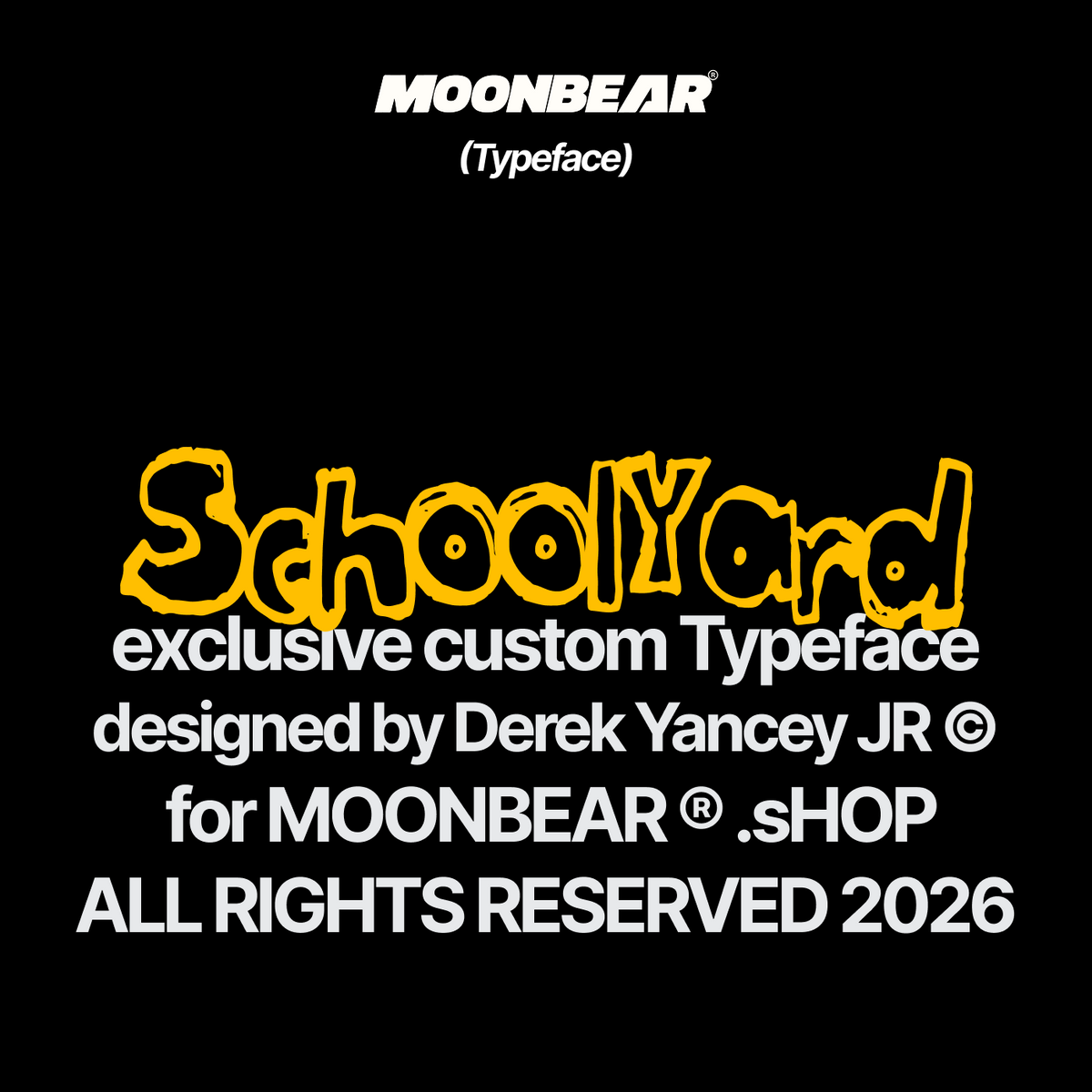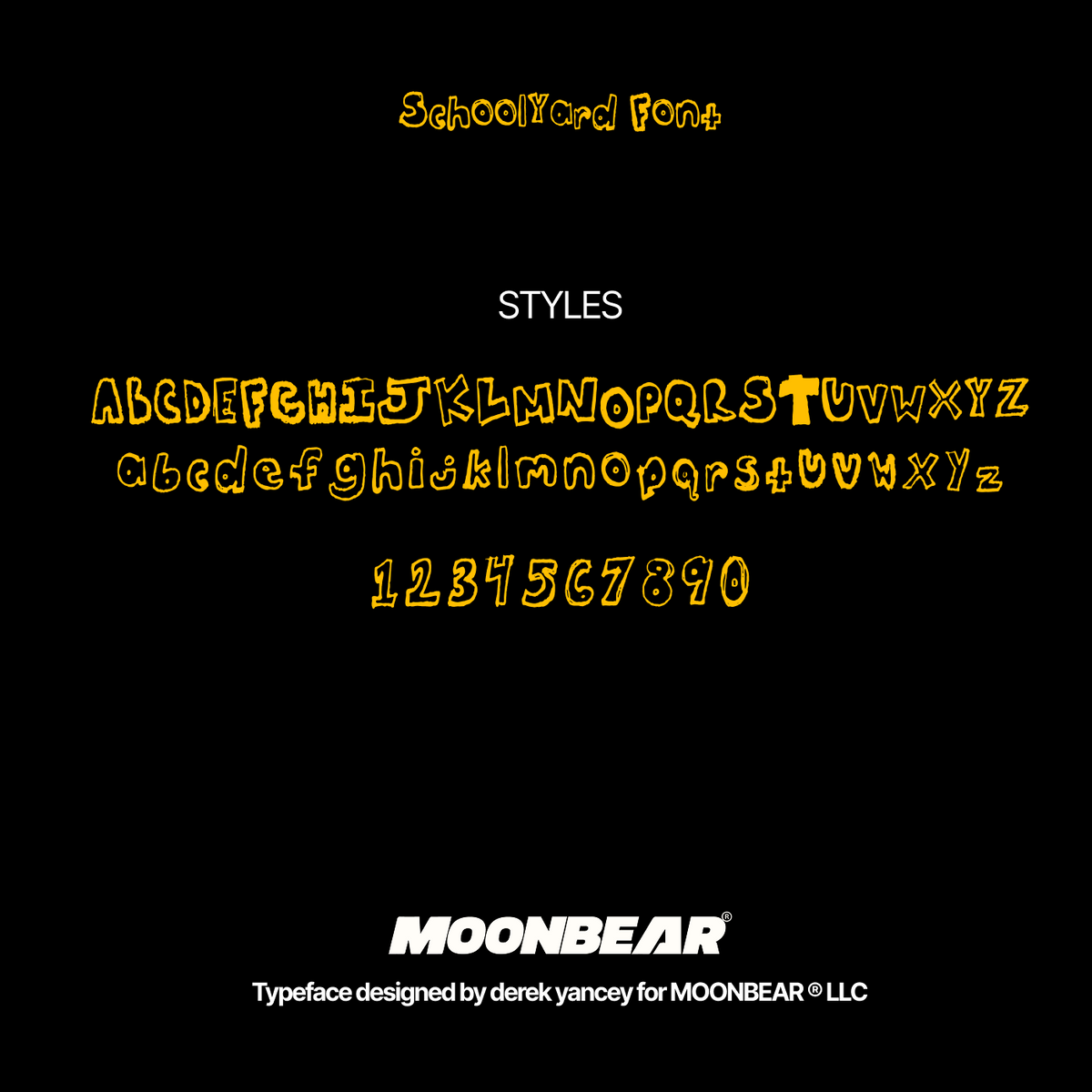
SchoolYard Font
Description
Create irresistible designs with the School Yard Font!
This fun, chalk inspired font will add a playful touch to any project.
Perfect for music videos, films, or poster designs.
This font is sure to catch everyone's eye.
Get creative and make your designs stand out with School Yard Font.